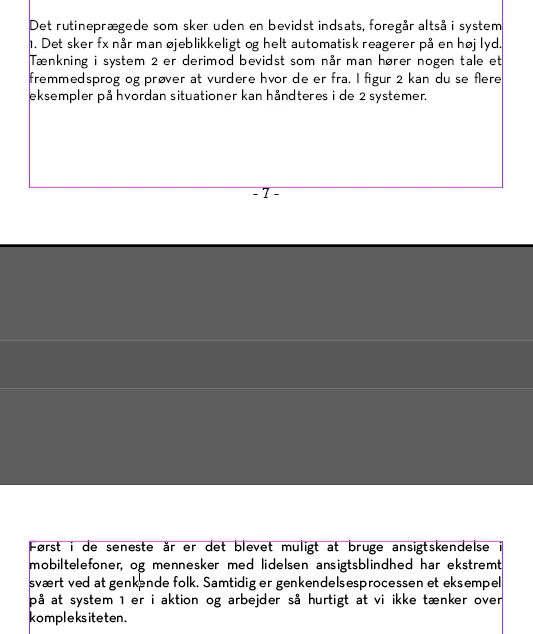
The same font behaves differently between documents
I have 2 indesign documents: 1) created by another designer, 2) created by me
They both use the font Neutra text set to "book", but they look different from each other. I have been through every single setting I can find but they still look different with "everything" set to the same.
Could someone suggest some solution here?
I would like the text in both documents to look like it does in version 2
The situation is getting a bit absurd.
Now in the document with the font behaving as I wish, part of the document has changed to this bold-looking font. See this image. All settings I can find are equal for these two pages.
well, version 1 has smaller leading and tracking, this makes all the text to look darker. If you wish, you can set them evenly and look what's happen
Tracking is 100% in both versions.
Leading is almost identical and setting it to identical values does not change the problem.
Addition: It seems that when I make a new document the font behaves as in version 2.
So somehow I guess some setting or error in version 1 affects the font.